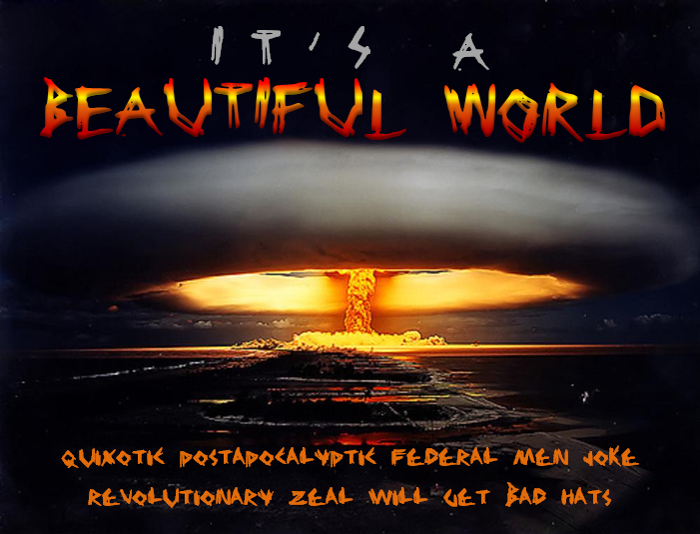
Beautiful World NBP Font
A scratchety font with no curves.... just like our inflexible world leaders. Yeah. Modern art much? :P Basically I just wanted a font where the O is a scratched out square.